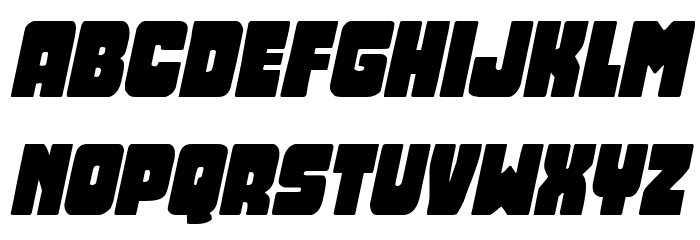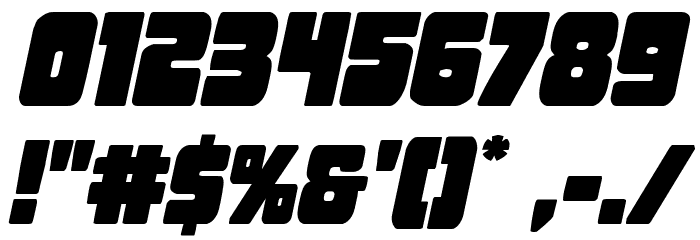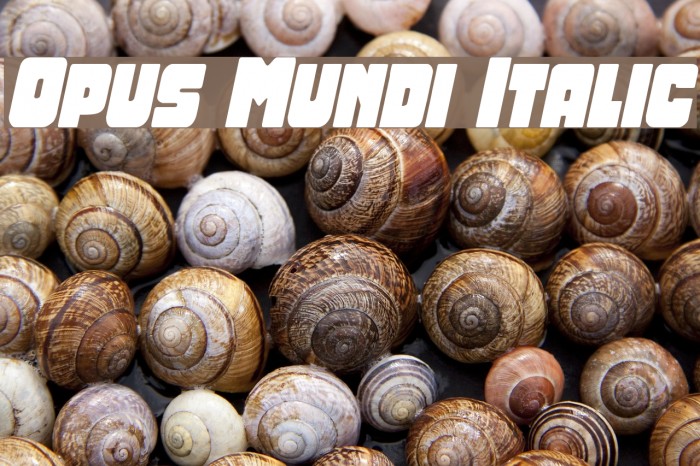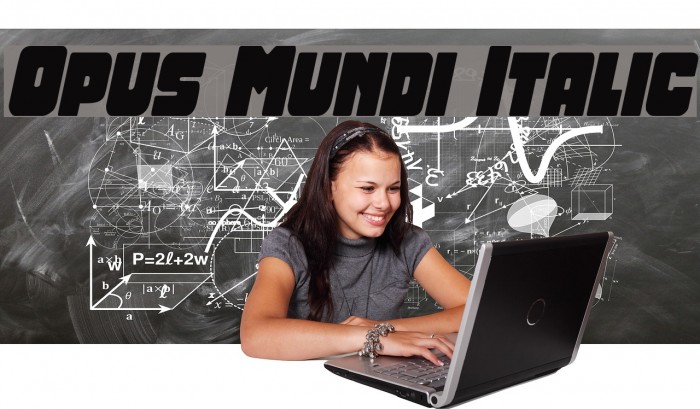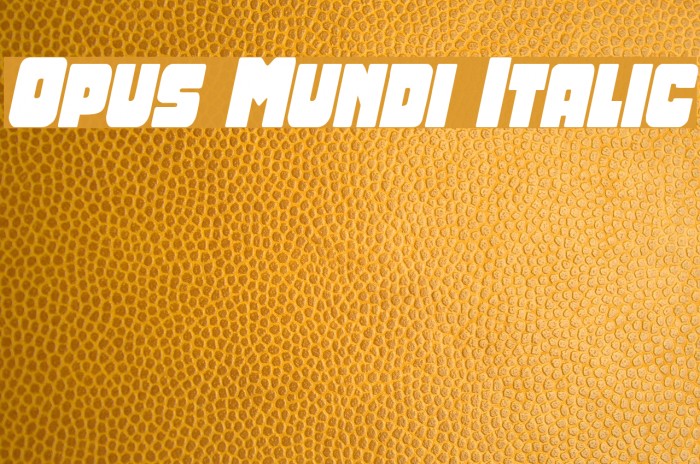
Opus Mundi Italic Font
This font features bold, italicized characters with a strong, impactful presence. The letters are heavily weighted, providing a sense of authority and confidence. The italic slant adds a dynamic, forward-moving energy, making it suitable for attention-grabbing headlines. The characters are wide with tight spacing, ensuring they stand out prominently in any design. The high contrast between the thick strokes and minimal curves gives it a modern and assertive look, ideal for making a statement.
Bold, italicized font with strong, impactful characters and high contrast.
- Proposed Projects: Ideal for sports branding, dynamic posters, impactful headlines, and modern advertising campaigns.
- Width: Expanded
- Character Spacing: Tight